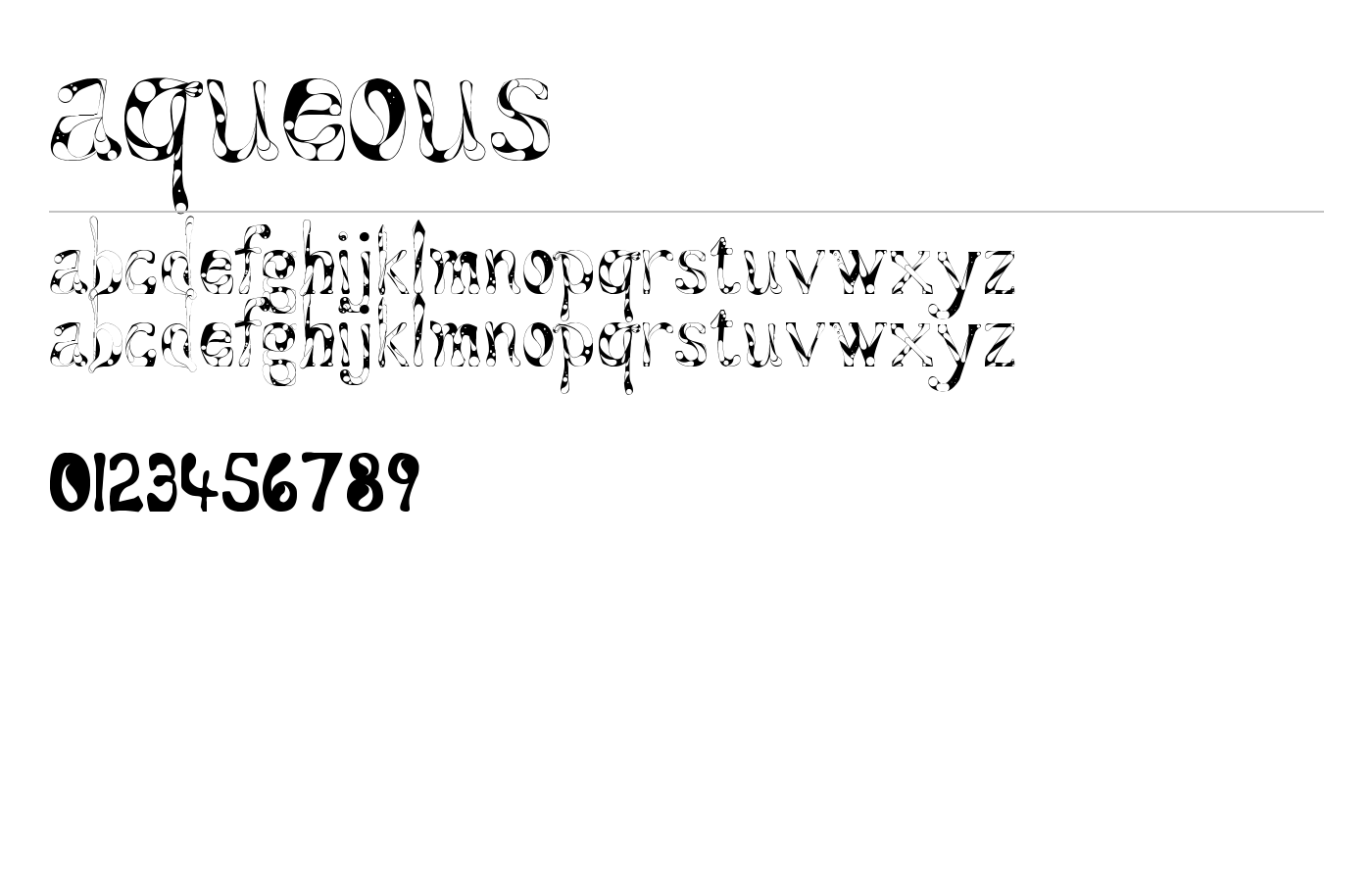
Aqueous is a whimsical serif font characterized by its narrow, tall letterforms and playful inkblot-like patterns that evoke a fluid, almost liquid appearance. Its unique, artistic style makes it ideal for creative and eye-catching designs, such as posters, logos, and branding that seek an unconventional, imaginative vibe. This font stands out for its decorative personality and works best in large display settings where its intricate details can shine.
Aqueous Font
About Aqueous Font
| Font family | Aqueous Font |
| Designer | Connor Bouchard |